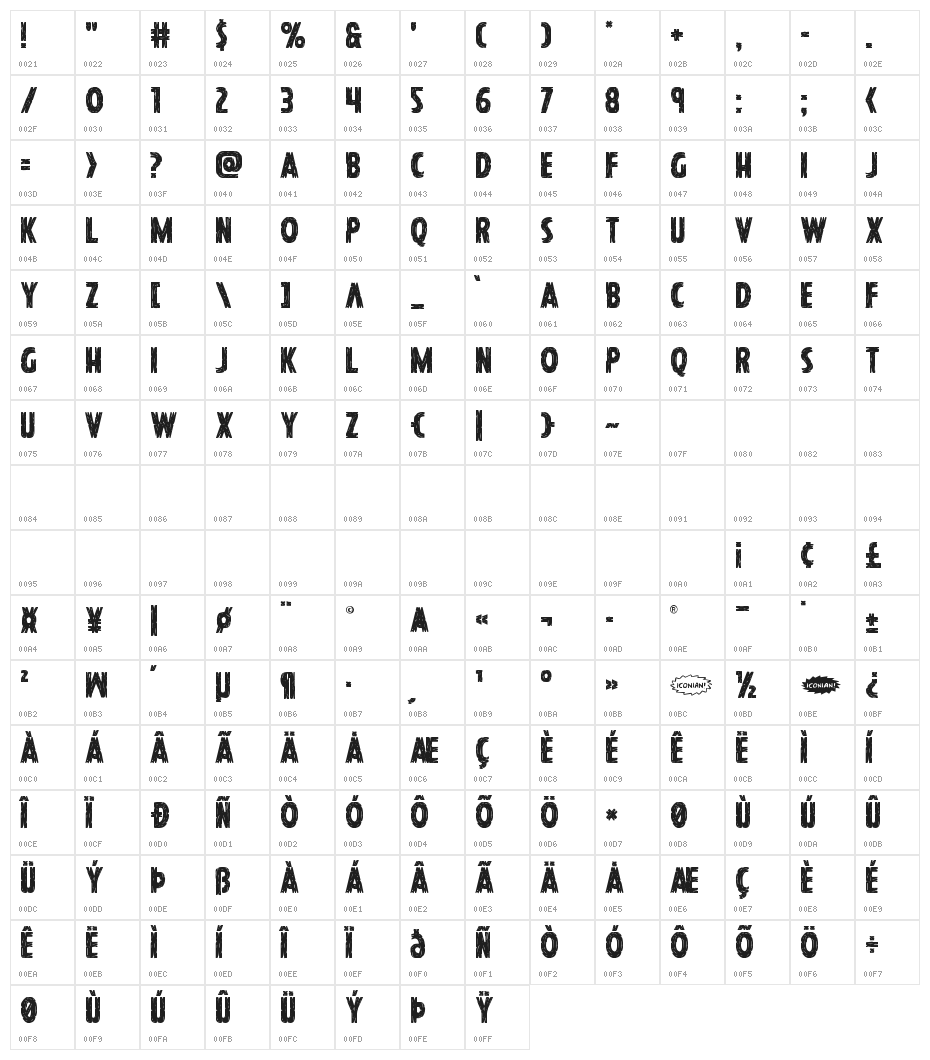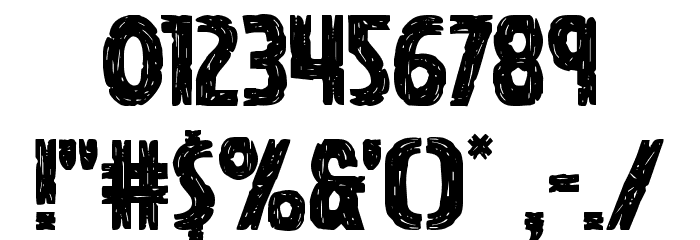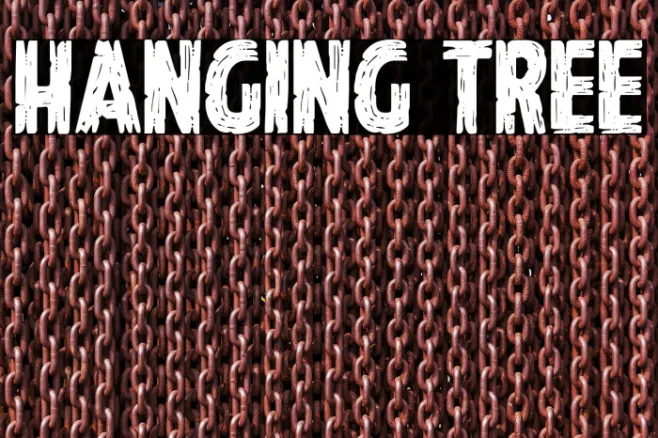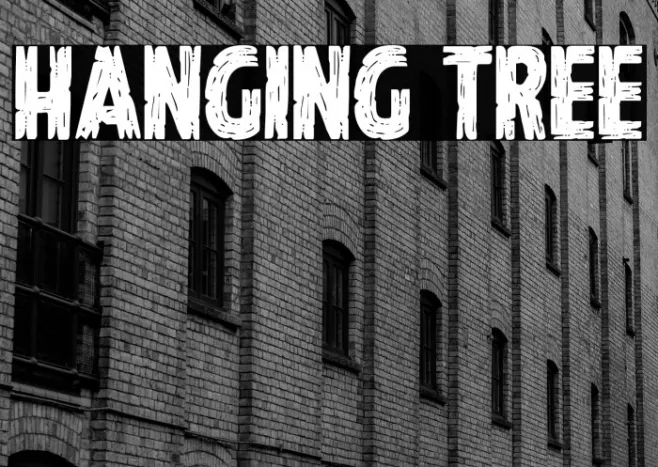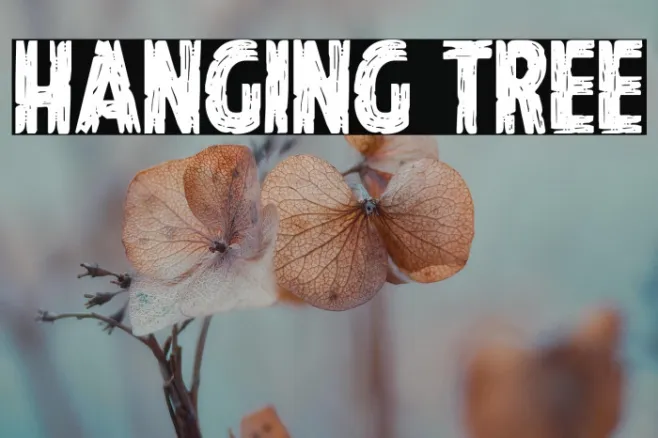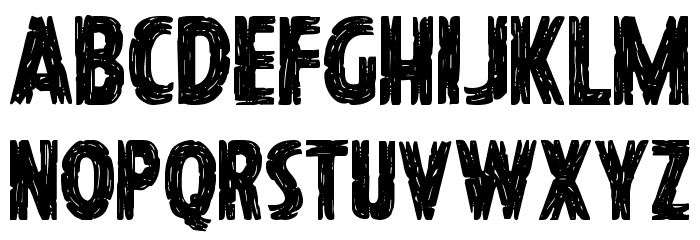
Hanging Tree Font
Hanging Tree Description
This font features a bold and rugged style, characterized by its rough, hand-drawn appearance. The letters are thick and uneven, giving them a distressed and textured look. The strokes are irregular, with a sketch-like quality that adds a sense of movement and energy. This font is highly decorative and makes a strong visual impact, ideal for designs that require a bold statement. The uppercase and lowercase letters maintain a consistent style, while the numbers and special characters complement the overall aesthetic. The font's unique appearance makes it suitable for creative projects that aim to capture attention and convey a sense of edginess or artistic flair.